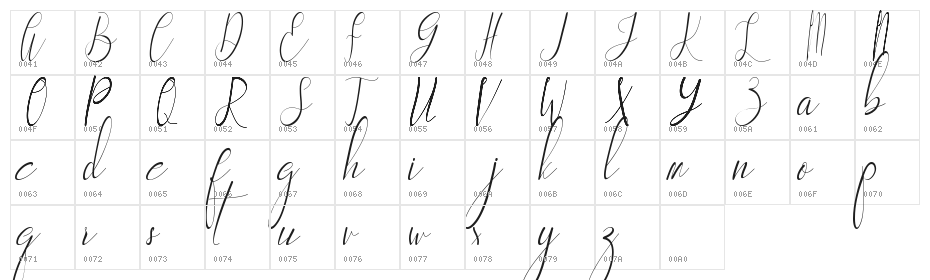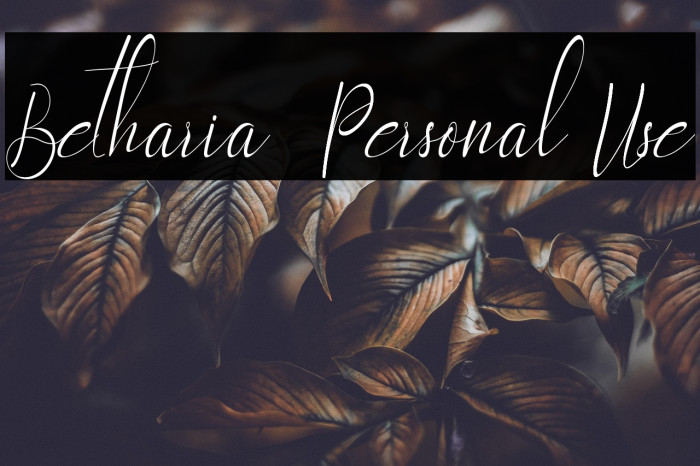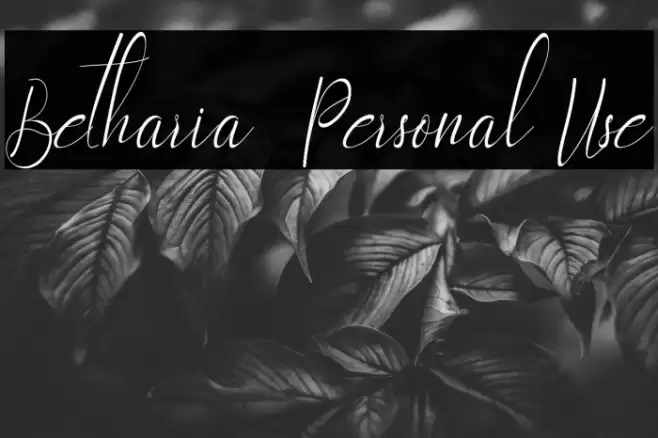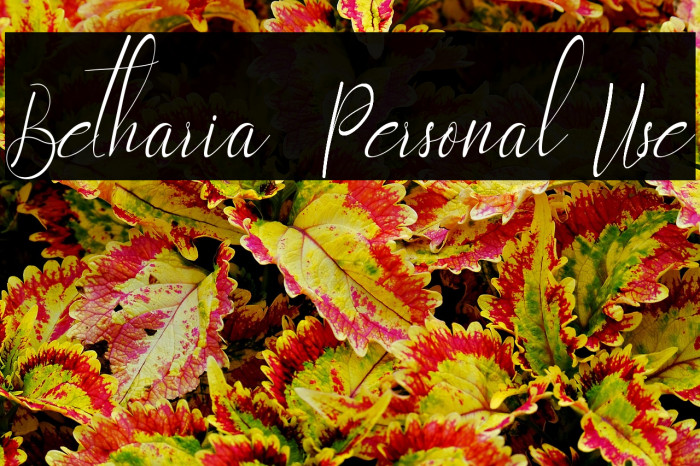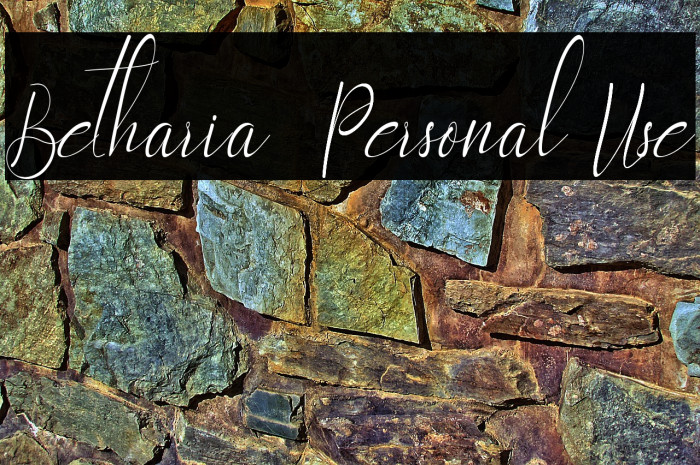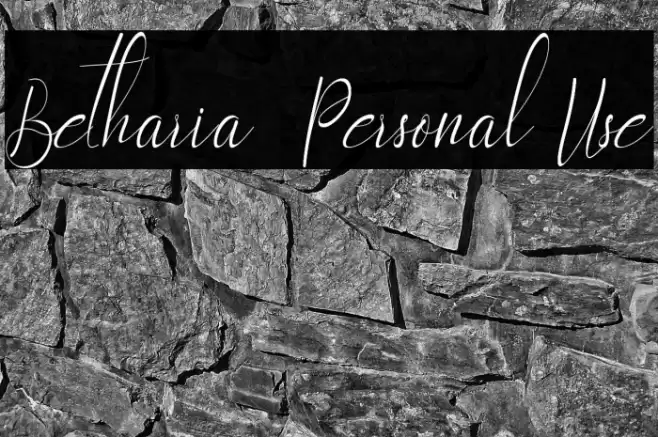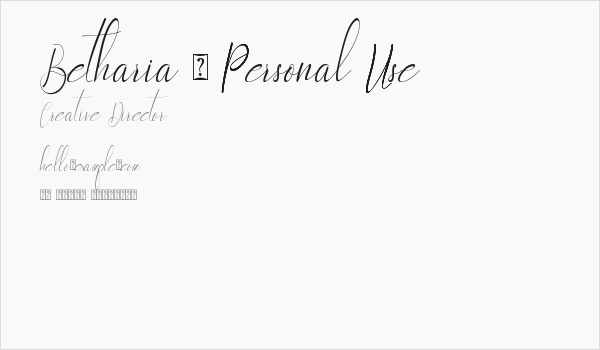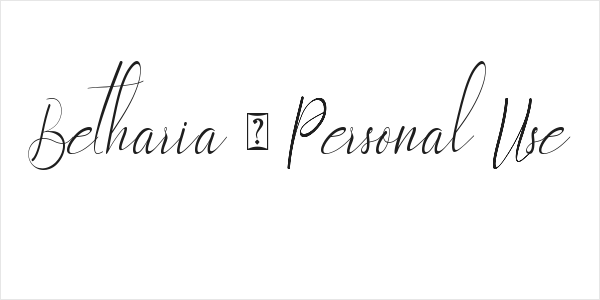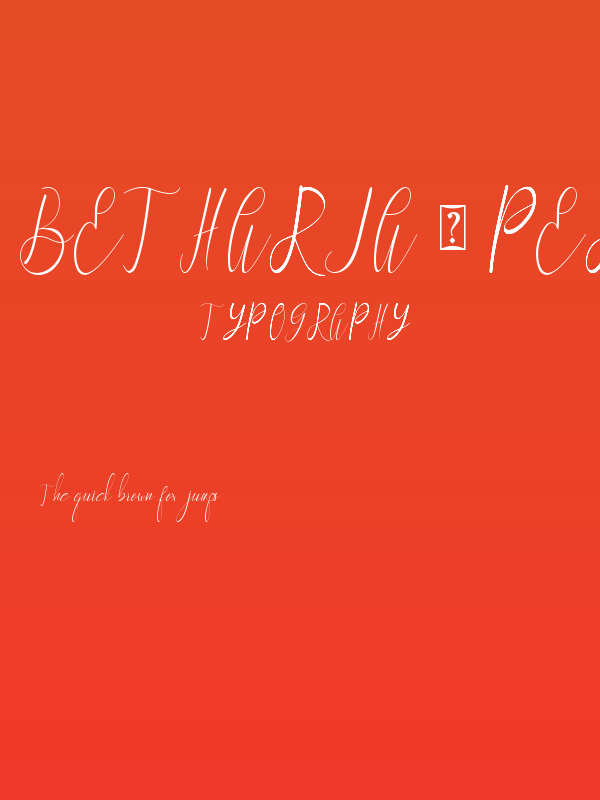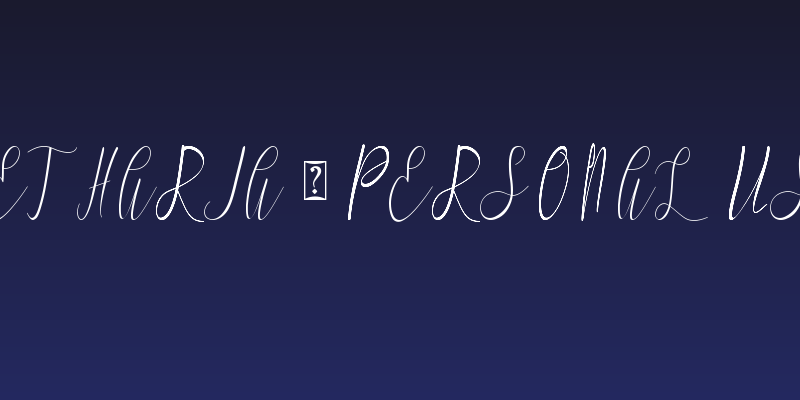
Betharia - Personal Use Font
Betharia - Personal Use Description
This font features an elegant and flowing script style, characterized by its delicate and elongated letterforms. The strokes are thin and graceful, with a consistent slant that adds a sense of motion and fluidity. The uppercase letters are particularly ornate, with extended loops and flourishes that enhance the decorative appeal. The lowercase letters maintain a cohesive style, with smooth connections that suggest a handwritten quality. The numerals and special characters are designed to match the overall aesthetic, ensuring a harmonious appearance across all text. This font is ideal for projects that require a touch of sophistication and elegance.
Overall StyleElegant
Use CaseLogos, Invitations, Decorative text
Proposed ProjectsIdeal for wedding invitations, greeting cards, branding, and elegant stationery.